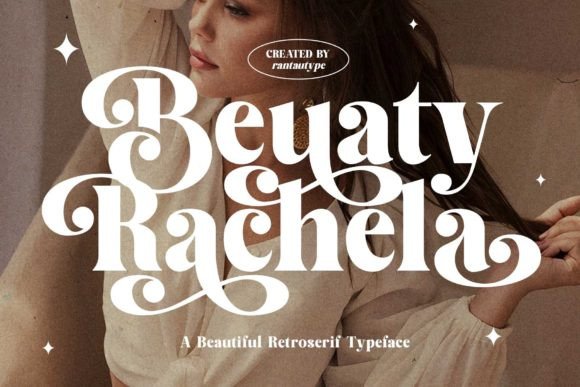
Introducing Beauty Rachela Font, the perfect serif font for all your skincare product needs. Created by RantauType, this stunning vintage font will elevate your designs and captivate your audience.
Beauty Rachela Font stands out with its bold curves, giving it a unique and elegant look. Its modern and versatile style makes it the perfect choice for any creative endeavor. With a wide range of alternate characters and ligatures, you can mix and match to create stunning and eye-catching displays.
Whether you're designing a logo, title, cover, branding, display, or magazine, Beauty Rachela Font is sure to make a statement. Its chic and lifestyle-inspired design will add a touch of sophistication to your projects, making them stand out from the crowd.
One of the key features of Beauty Rachela Font is its versatility. With separate regular and italic versions, you have even more options to play with. This font allows you to experiment and create unique combinations that perfectly represent your brand or product.
But Beauty Rachela Font is not just about aesthetics. Its keyword-rich design caters specifically to skincare products, making it an excellent choice for any beauty-related project. Whether you're selling creams, lotions, or other skincare essentials, this font will instantly convey a sense of luxury and quality to your customers.
Imagine your product labels adorned with the Beauty Rachela Font. The elegant and modern typography will instantly catch the eye of potential buyers, evoking emotions of trust, sophistication, and beauty. It's the perfect way to make your skincare products stand out from the competition.